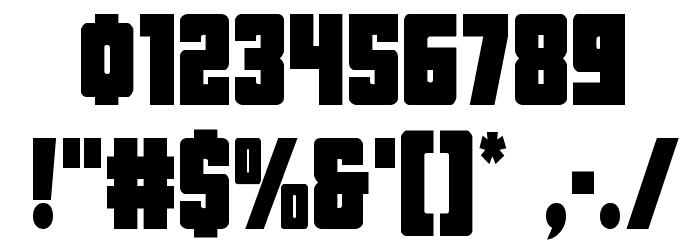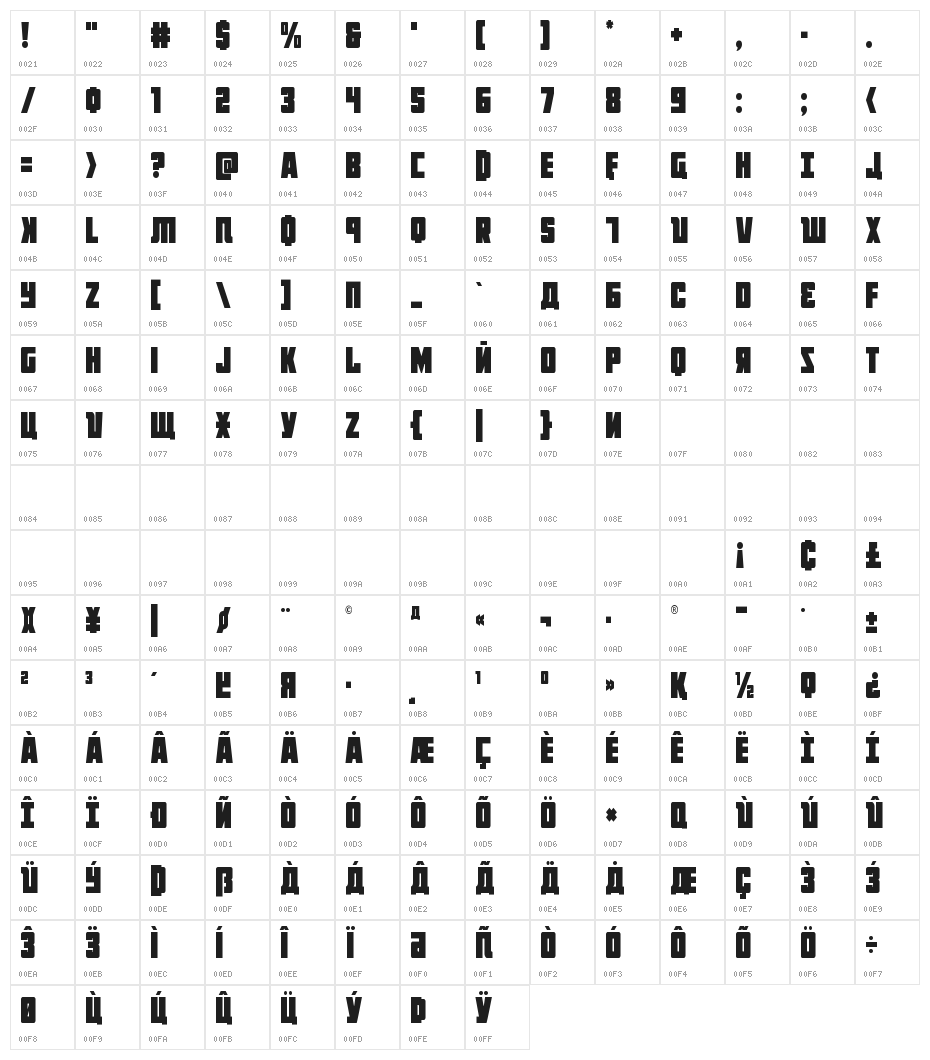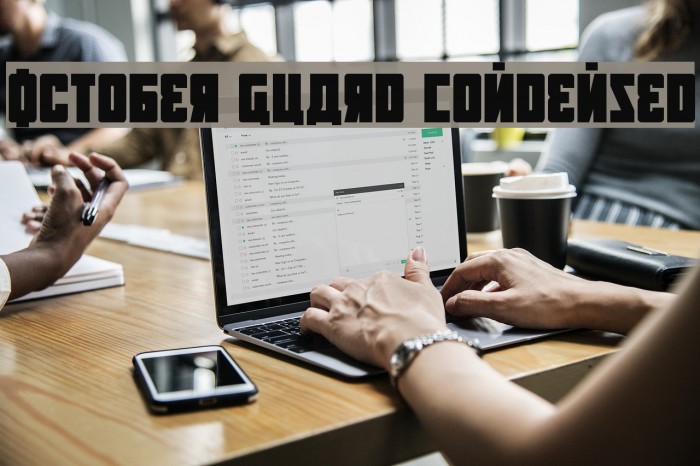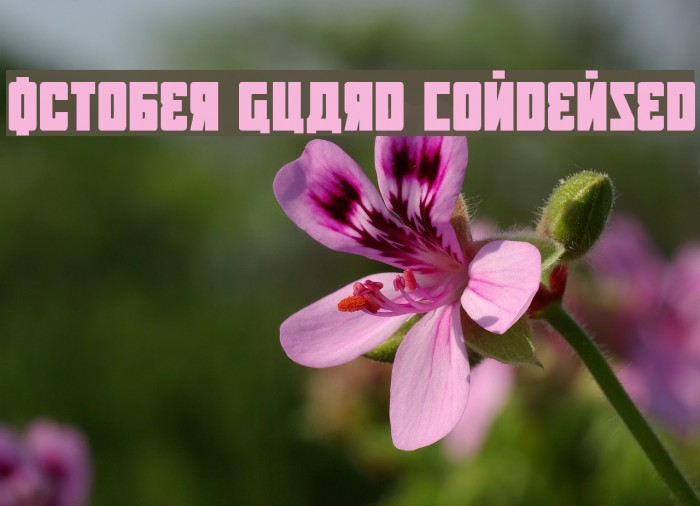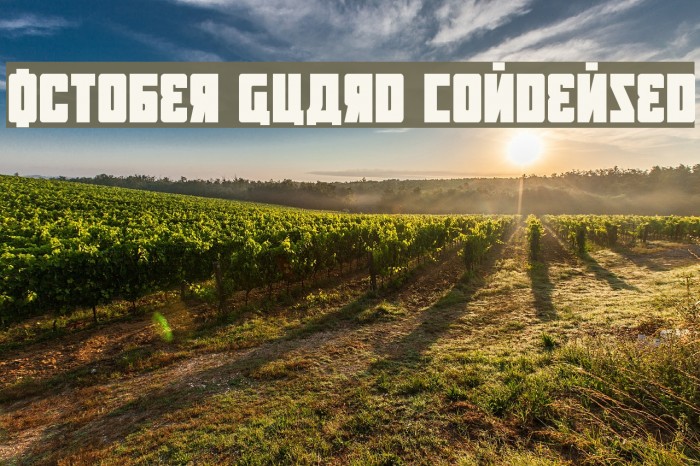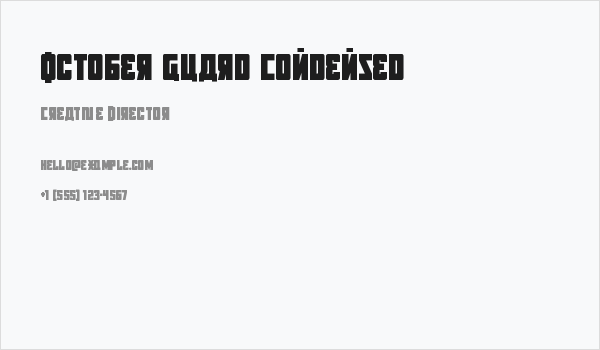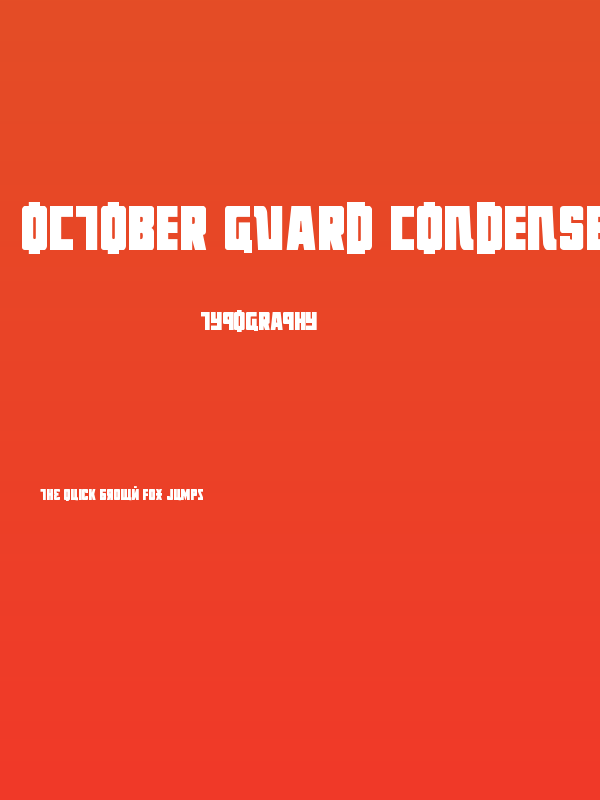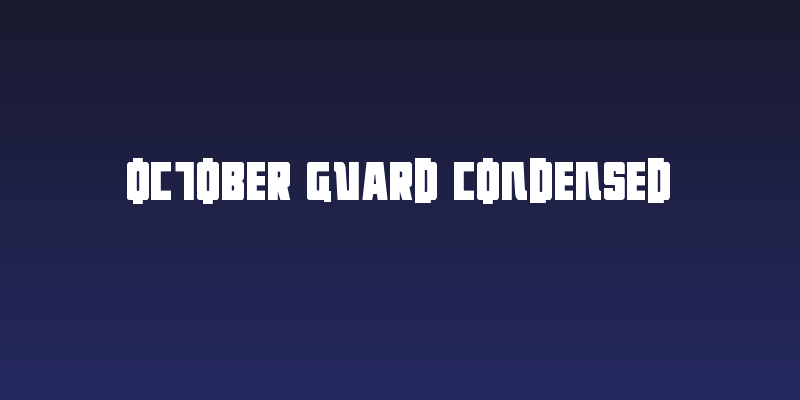
October Guard Condensed Font
October Guard Condensed Description
This font features a bold and striking design with a condensed structure, making it ideal for impactful headlines and attention-grabbing displays. The characters are blocky and robust, with a strong geometric influence that gives them a modern and industrial feel. The uppercase letters are particularly dominant, with sharp angles and a uniform height that enhances their presence. The numerals and special characters maintain the same boldness, ensuring consistency across all text elements. The font's condensed width allows for efficient use of space without sacrificing readability.
| Proposed Projects | Ideal for posters, banners, and branding materials that require a strong visual impact. |